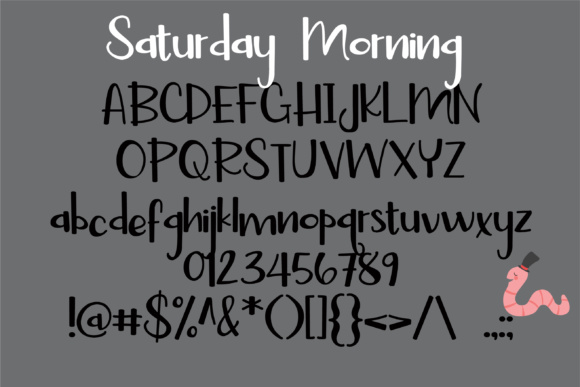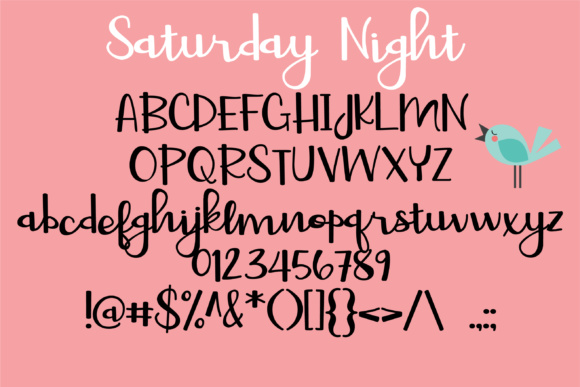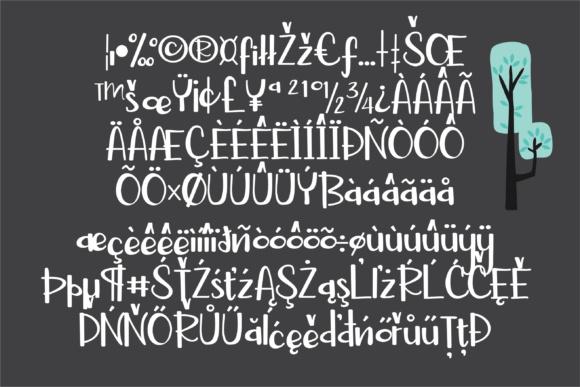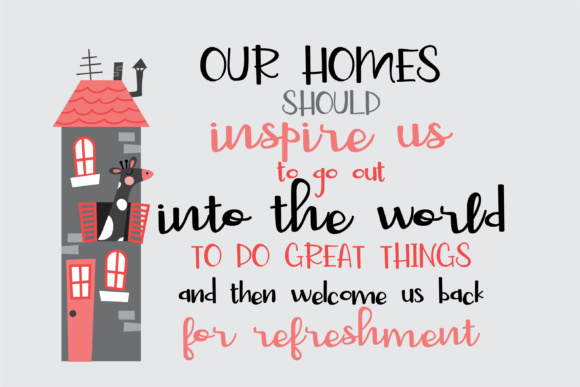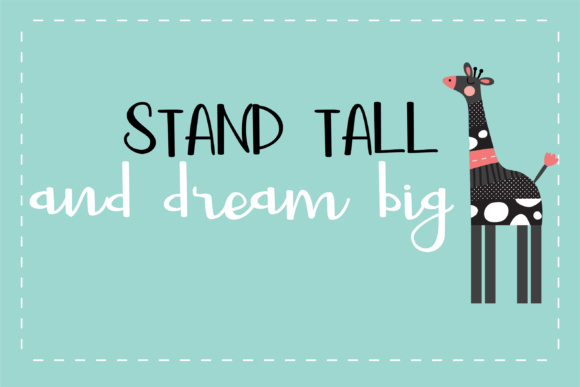
Saturday Duo Font
About Saturday Duo Font
This adorable font duo has one cursive font: PN Saturday Night, and a coordinating print font: PN Saturday Morning. Use both together for a coordinated look!